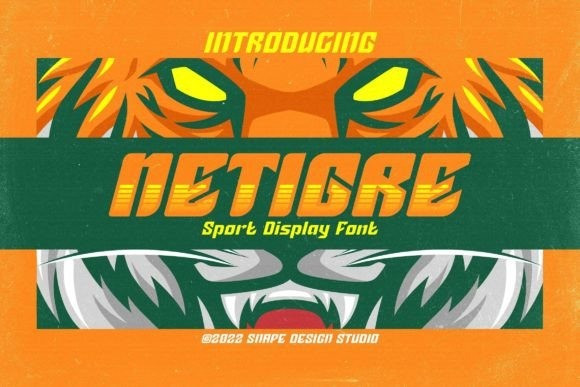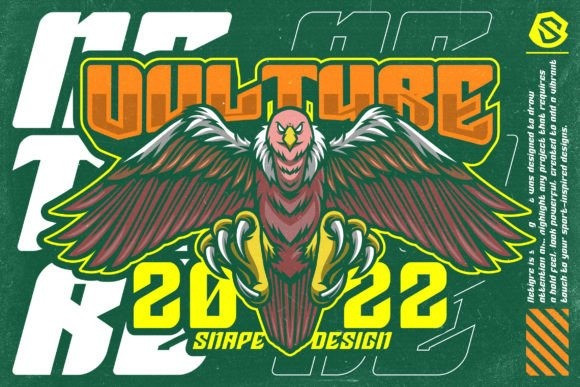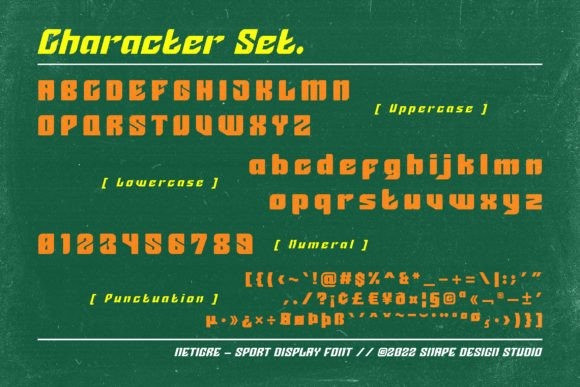
Netigre Font
Netigre is a robust font that was designed to draw attention and highlight any project that requires a bold feel, and a powerful look, created to add a vibrant touch to your sport-inspired designs. Suitable for sports design, team, jersey, league, movie, film, logo, poster, game, book cover, headlines, title, and many more projects.